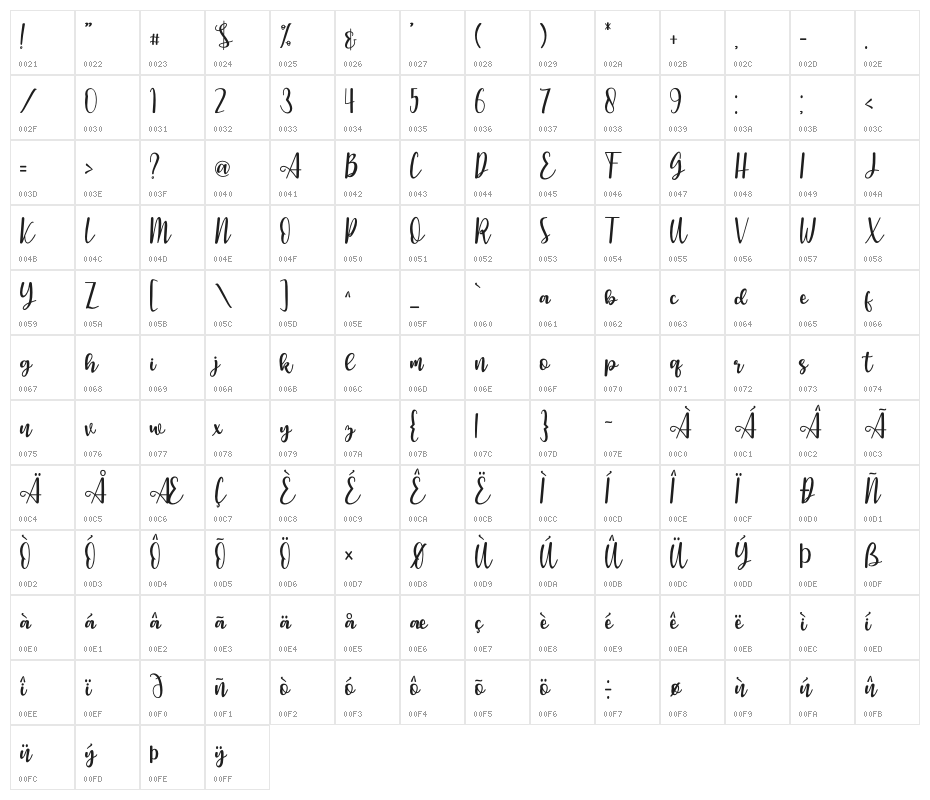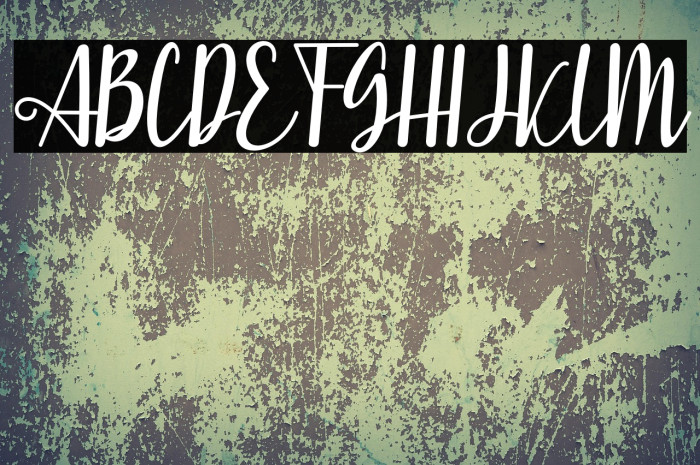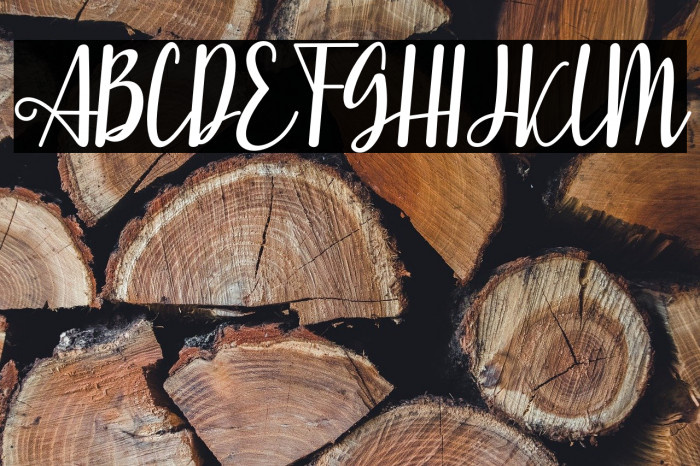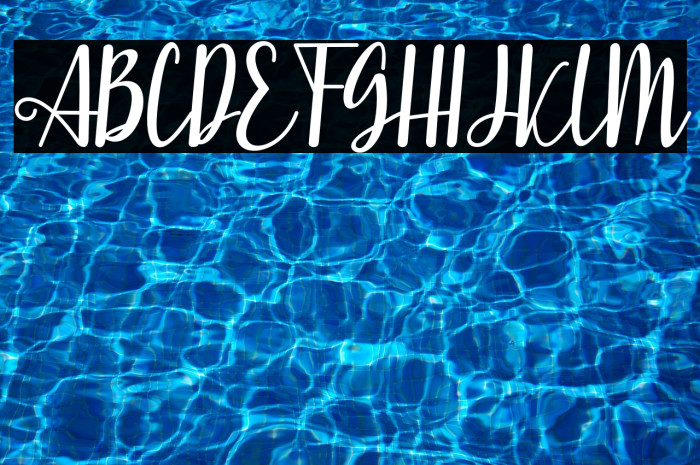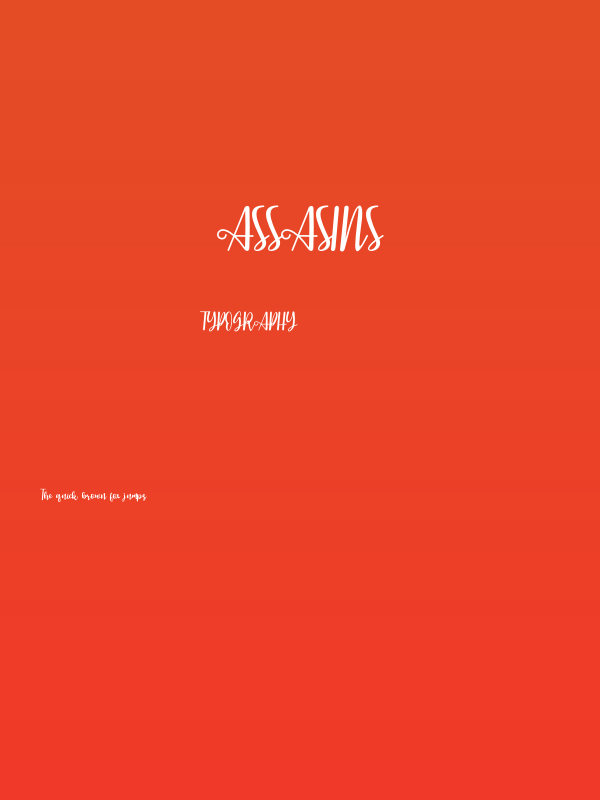
Assasins Font
Assasins Description
This font features a dynamic and flowing script style, characterized by its elegant and cursive letterforms. The uppercase letters are tall and slightly slanted, with unique flourishes that add a touch of sophistication. The lowercase letters maintain a consistent flow, with rounded edges and smooth connections between characters. Numbers and special characters are designed to complement the overall script style, maintaining the same fluidity and elegance. This font is perfect for projects that require a personal and artistic touch, such as invitations, greeting cards, and branding materials.
| Proposed Projects | Ideal for invitations, greeting cards, branding, and artistic projects. |